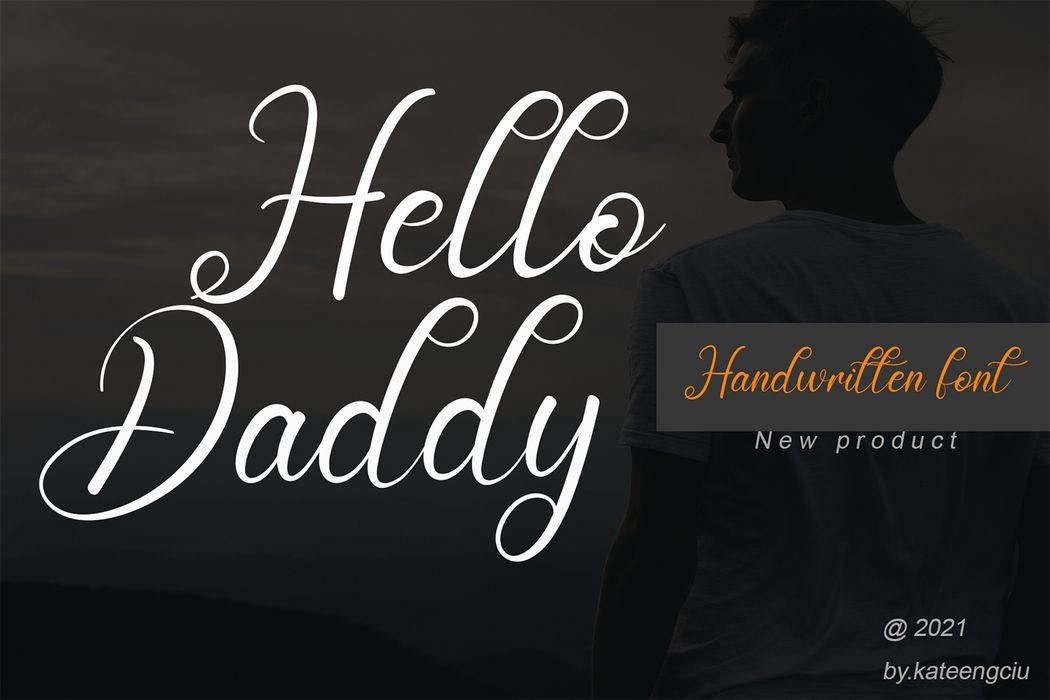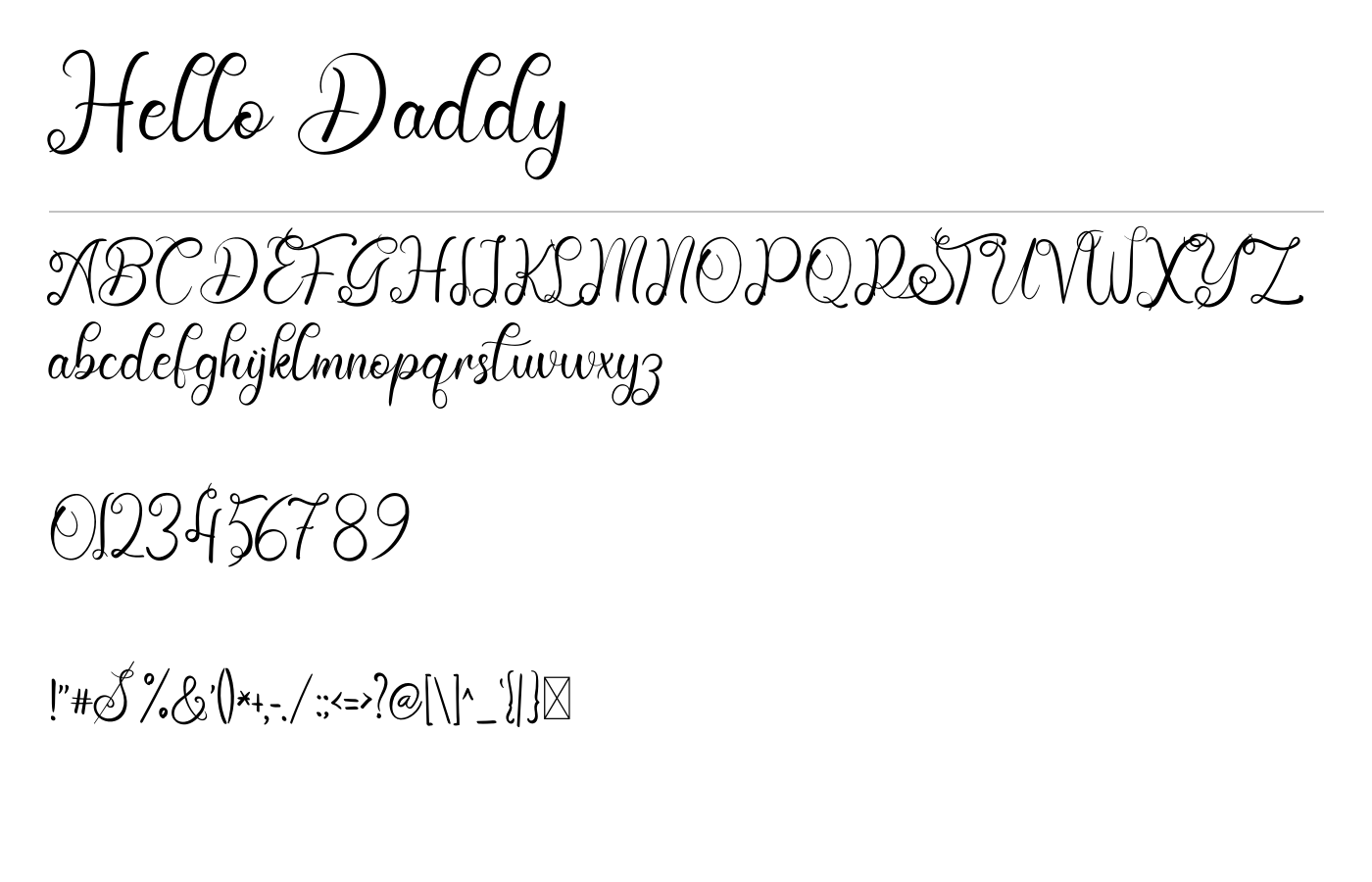
Hello Daddy is a decorative script font with elegant, swirling letterforms that combine thin strokes and playful loops to create a light and graceful appearance. Its tall, narrow characters and intricate details make it ideal for projects that seek a charming, whimsical, and sophisticated vibe, such as invitations, greeting cards, and feminine branding. This font works best in large sizes for headlines and titles where its ornate style can shine without compromising readability.
Hello Daddy Font
About Hello Daddy Font